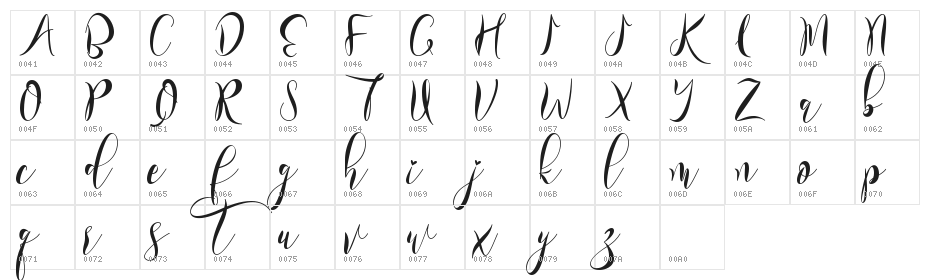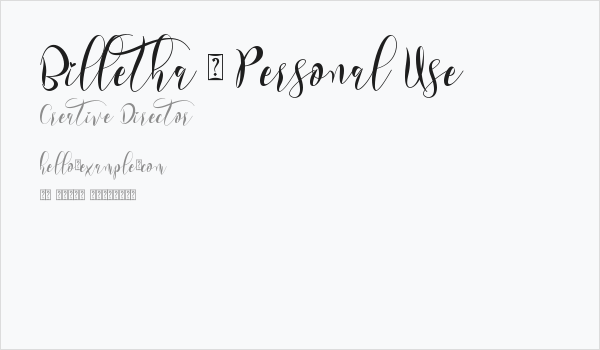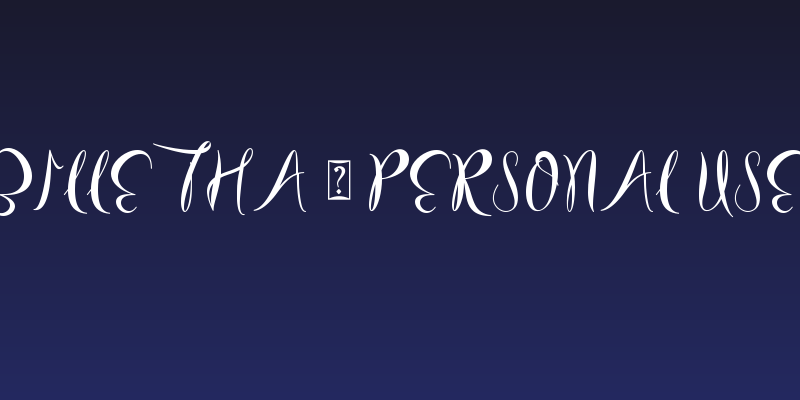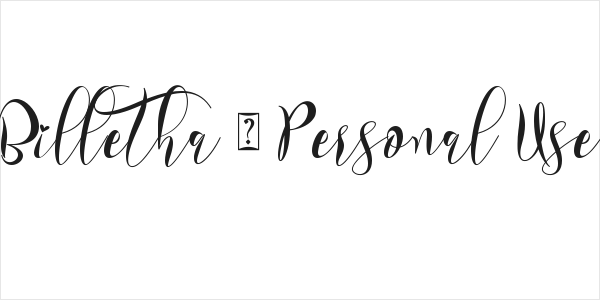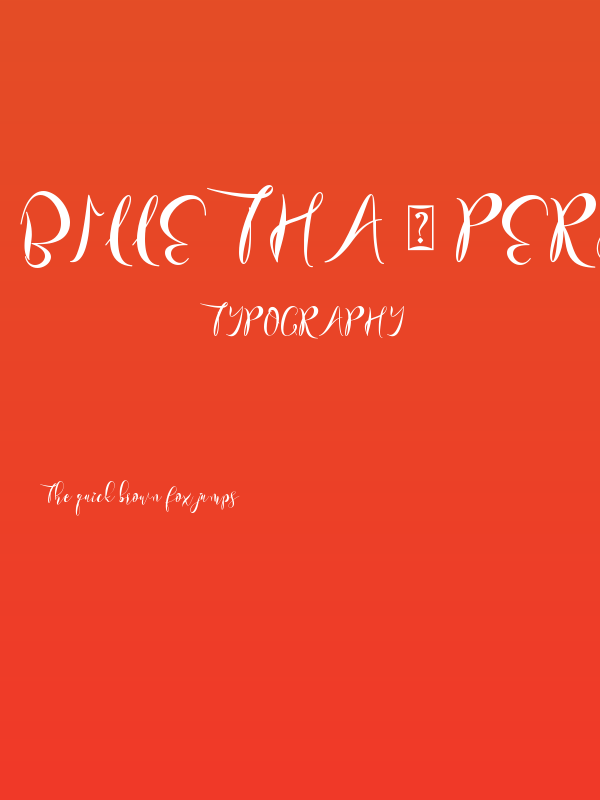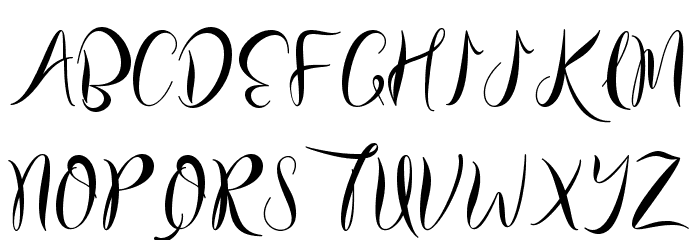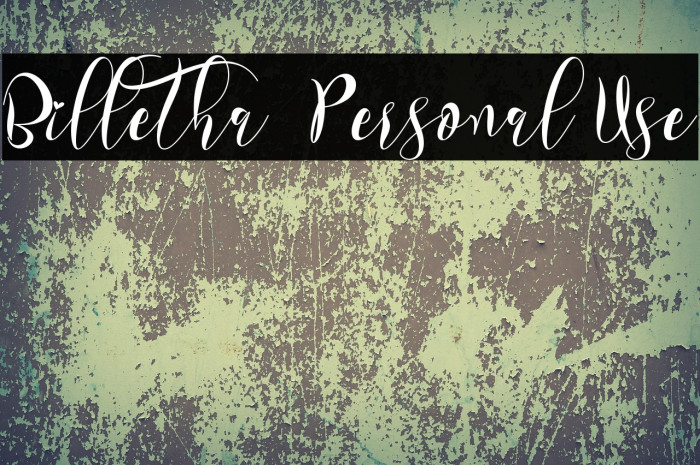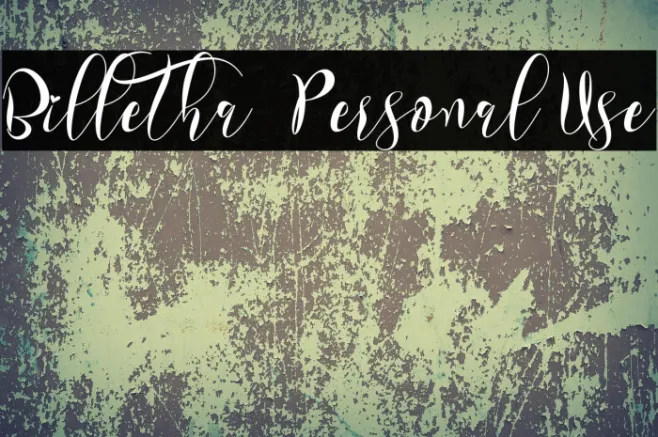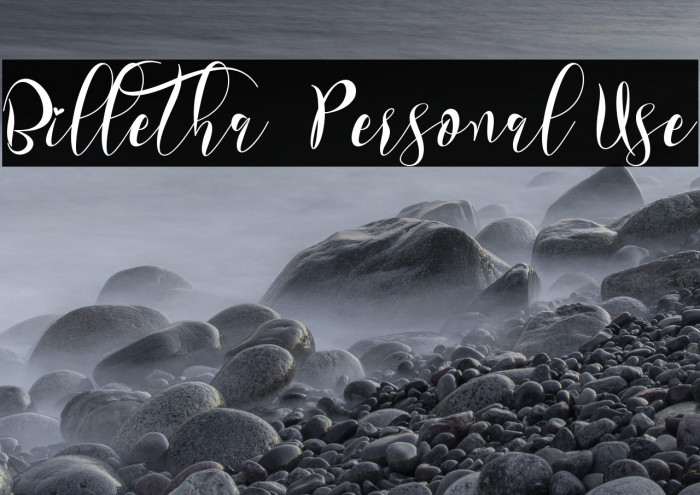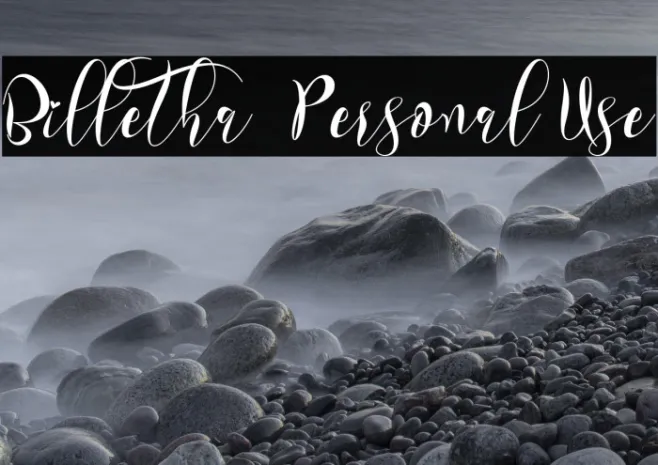
Billetha - Personal Use Font
Billetha - Personal Use Description
This font features an elegant, flowing script style with a modern touch. The characters are intricately designed with smooth curves and varying stroke widths, creating a dynamic and artistic appearance. The uppercase letters are tall and graceful, while the lowercase letters maintain a consistent flow, enhancing readability despite their decorative nature. The font's unique flair is evident in the playful loops and swashes, particularly in letters like 'g', 'y', and 'f'. It exudes a sense of sophistication and creativity, making it suitable for projects that require a personal and artistic touch.